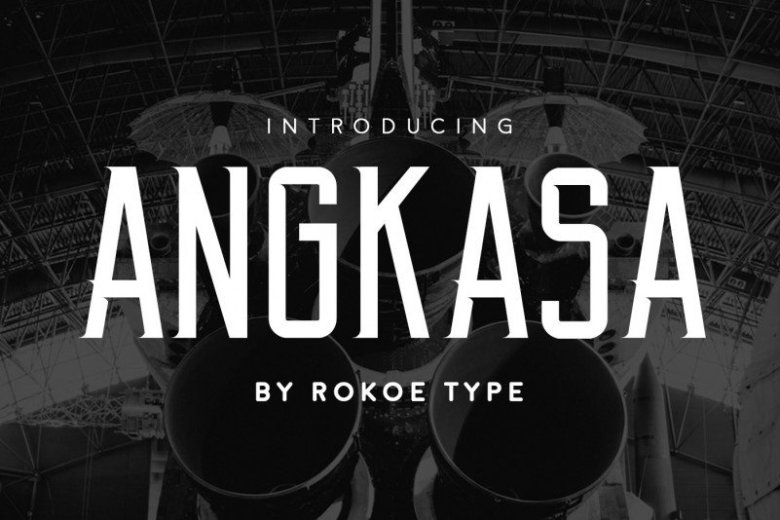
Angkasa Typeface
Say Hello Guy’s . Thank you for looking Angkasa Font. This is the classic serif I’ve been looking for in my design work – clean lines, modern serifs, and just a touch of vintage, a modern and minimalist style. This beautiful scifi font offers your personal touch to your latest art project with elegant, classy and modern look.
Angkasa Serif Font offers gorgeous typographic will perfect for many different project such as logos & branding, invitation, stationery, social media posts, advertisements, product packaging, product designs, label, photography, watermark, special events or anything that need modern taste.